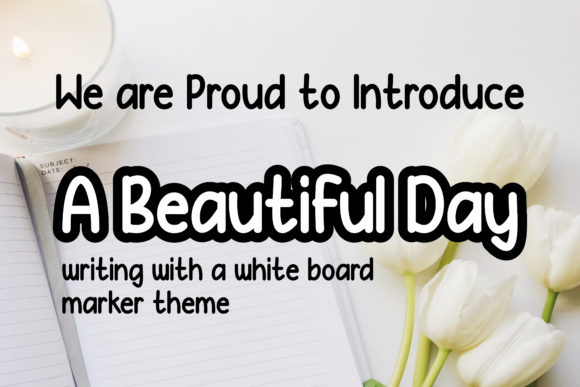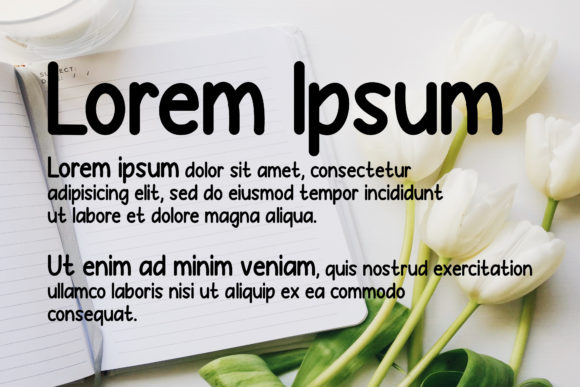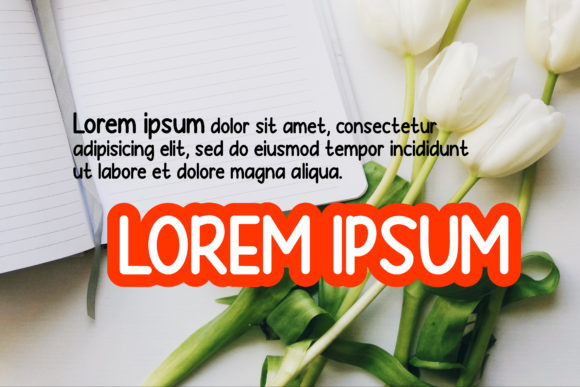
A Beautiful Day Font
About A Beautiful Day Font
A Beautiful Day is a clean and casual handwritten font. No matter the topic, this font will be an incredible asset to your fonts’ library, as it has the potential to elevate any creation.